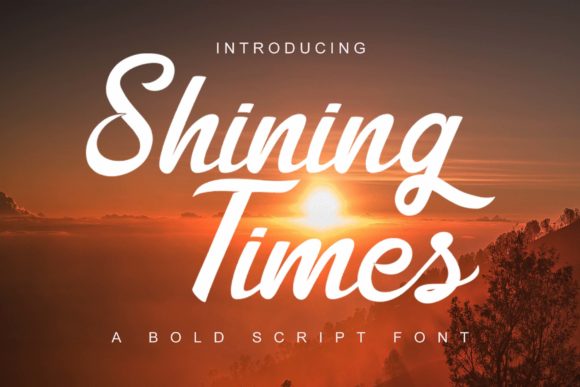
Delve into the world of captivating typography with Shining Times, a script font that exudes brilliance and energy. Its bold strokes and chic curves ignite creativity, inviting you to express your unique vision through stunning visuals. Whether it's for branding, logo designs, lettering, clothing, posters, or any other medium, Shining Times is primed to make an impact.
Visualize your designs reaching new heights of sophistication as Shining Times elevates every word and character. With its modern and dynamic flair, this font breathes life into your creative endeavors. Imagine crafting logos that shimmer with individuality and brands that resonate with timeless appeal. Let Shining Times be your partner in creating visual experiences that leave an indelible mark.
Unleash your imagination and let Shining Times take center stage. Its graceful lines and sweeping curves evoke a sense of elegance and motion, captivating audiences and leaving them mesmerized. From the delicate swirls of wedding invitations to the bold statements of marketing campaigns, Shining Times is the font that commands attention and sparks conversations.
Dive into a sea of creativity with Shining Times, where every letter is a brushstroke of brilliance. Its versatility knows no bounds, effortlessly adapting to a myriad of design styles and themes. Whether you're crafting vintage-inspired posters or contemporary fashion labels, Shining Times blends seamlessly, enhancing your designs with a touch of timeless allure.
Embrace the spotlight with Shining Times, a font that radiates confidence and charisma. Let your designs shine with a touch of audacity and flair. As a creation of senoajifont, Shining Times embodies the essence of artistry and innovation. Join the ranks of creative visionaries who have discovered the transformative power of Shining Times.